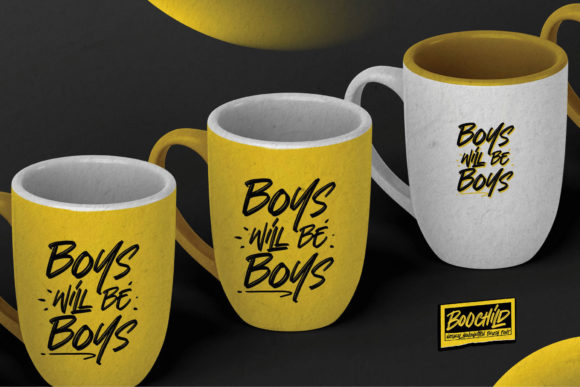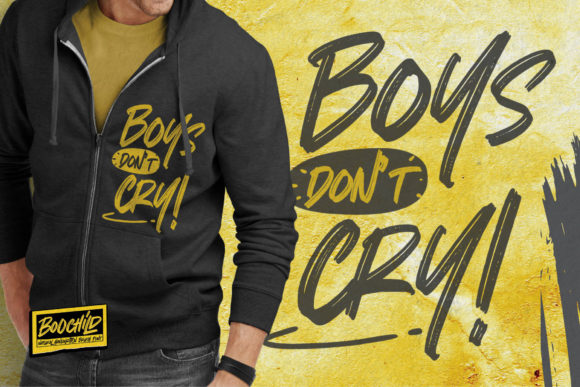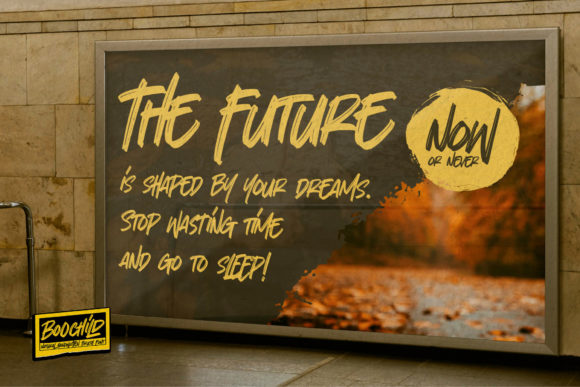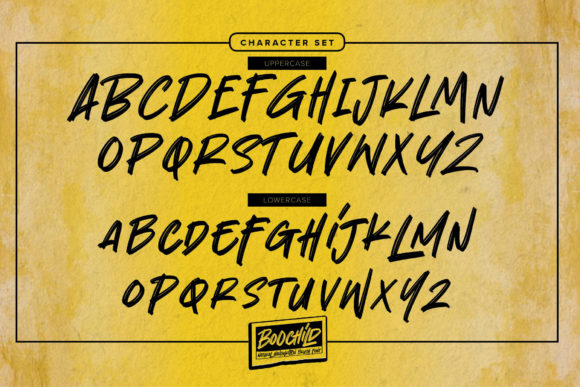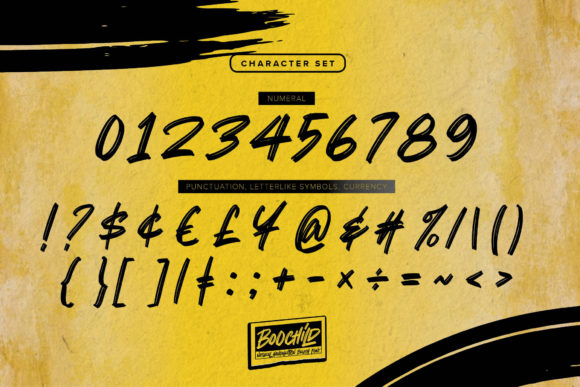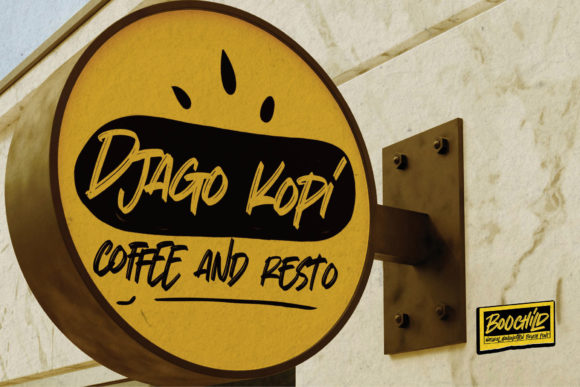
The Perfect Brush Stroke for Your Next Creative Project
There’s nothing quite like the thrill of brainstorming a new idea, surrounded by scattered notes, coffee cups, and a hint of creative chaos. As a designer, you know that moment when the perfect font strikes, and everything falls into place. That’s exactly what the Boochild Font is designed to do – add a touch of natural elegance and drama to your next project.
This beautiful handwritten brush font was crafted with love and care, making it perfect for a wide range of applications, from logos and printed quotes to invitations and product packaging. With its unique movement and style, the Boochild Font is sure to elevate your designs and leave a lasting impression on your audience.
Whether you’re a seasoned designer or just starting out, the Boochild Font is a valuable addition to your toolkit. Its versatility and charm make it an ideal choice for anyone looking to add a personal touch to their creative projects.
Key Features of Boochild Font
- Unique Characteristics: The Boochild Font features a unique, distressed look with rough edges and imperfections, adding a touch of vintage charm to designs.
Boochild Font Review
I recently had the chance to work with the Boochild Font and overall, I have mixed feelings about it. Here’s what I think:
- The Boochild Font has a unique and quirky charm to it. It’s perfect for projects that need a touch of whimsy and personality.
- The font is highly customizable, with a wide range of weights and styles available. This makes it easy to adapt to different design contexts.
- One of the standout features of the Boochild Font is its excellent legibility. It’s easy to read, even at small font sizes.
- One of the major limitations of the Boochild Font is its limited language support. It’s primarily designed for English and other Western languages, making it less suitable for projects that require support for non-Latin scripts.
- The font can look a bit cluttered when used in large blocks of text. It’s best used in moderation, as a accent or highlight font.
The Boochild Font is a solid choice for designers who want to add a bit of personality to their projects. While it has its limitations, its unique charm and excellent legibility make it a great option for the right project. However, it’s not a one-size-fits-all solution, and designers should carefully consider their needs before using it.
Tips for Getting the Most Out of Boochild Font
Use the Boochild font for creative and playful projects, such as:
– Children’s book illustrations
– Cartoon-style graphics
– Whimsical marketing materials
– Personalized gifts and decorations
Remember to pair the Boochild font with other creative fonts and graphics to achieve a unique and eye-catching design.
Alternatives to Boochild Font
Great Vibes is a modern, elegant font perfect for creating a fun and energetic vibe in your designs. It’s ideal for use in headings and titles where you want to grab the viewer’s attention. Great Vibes is more playful and fun compared to Boochild Font, which is more minimalist and simple.